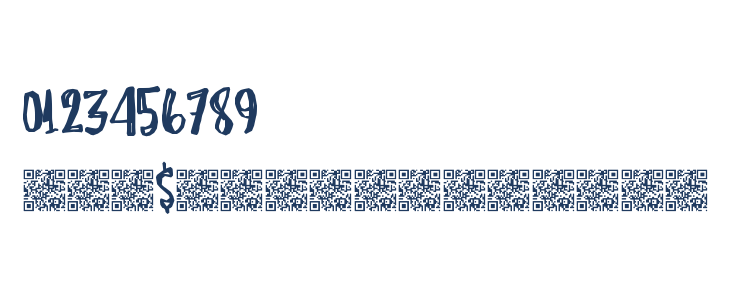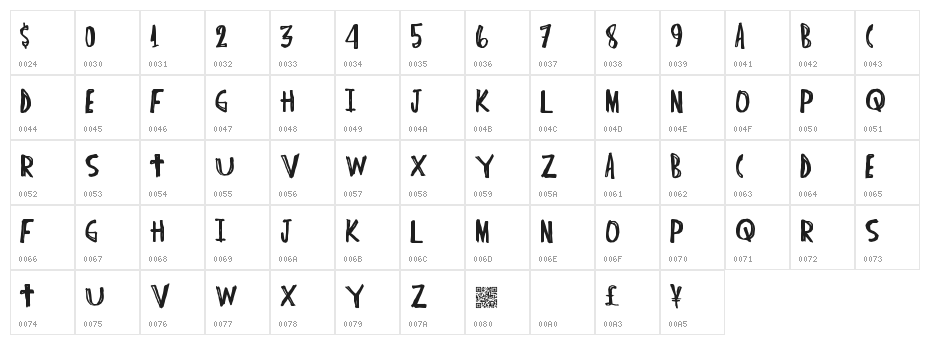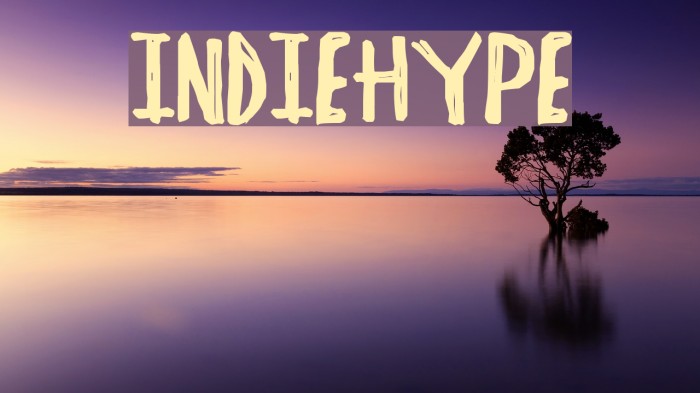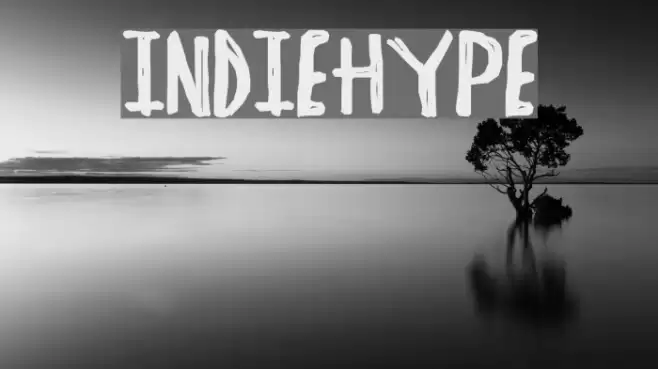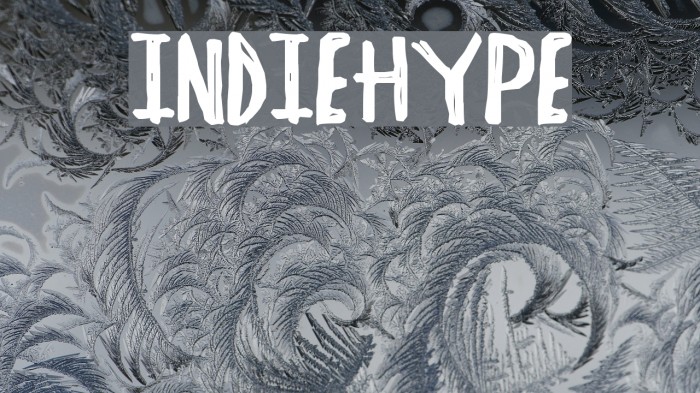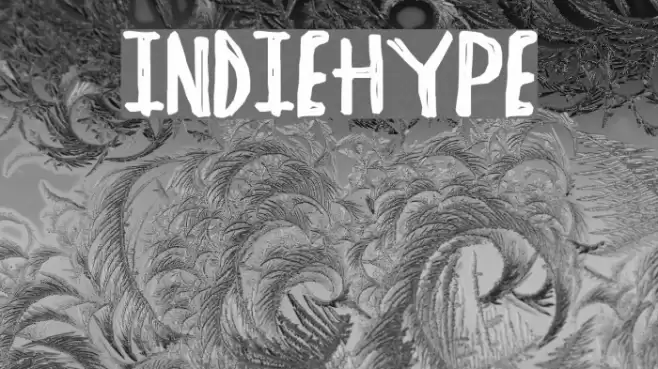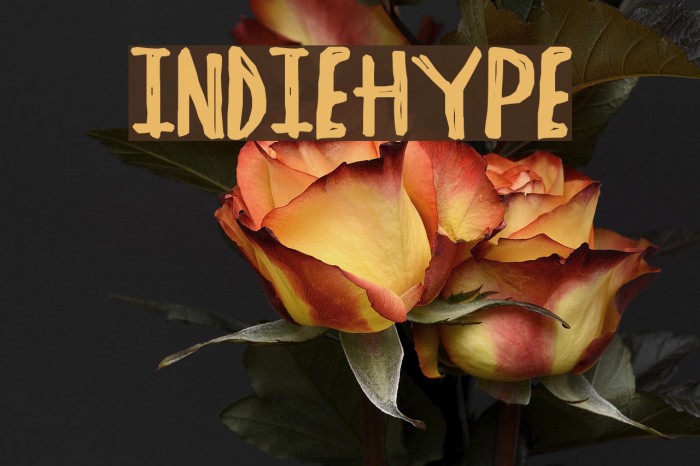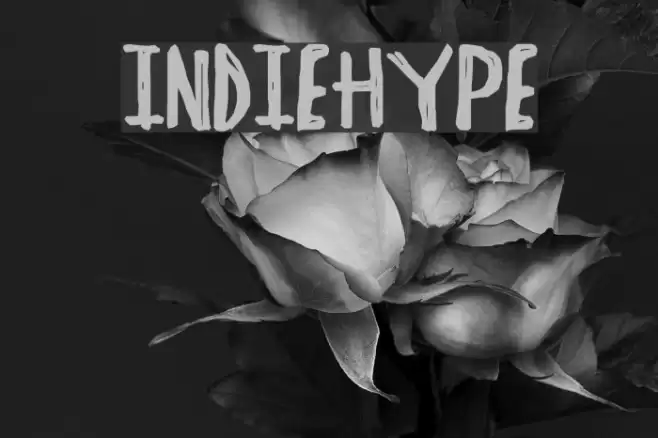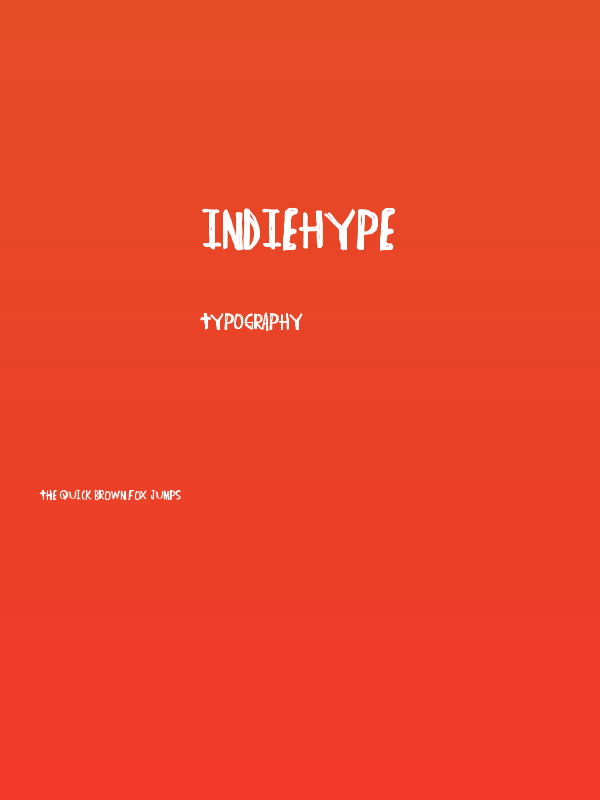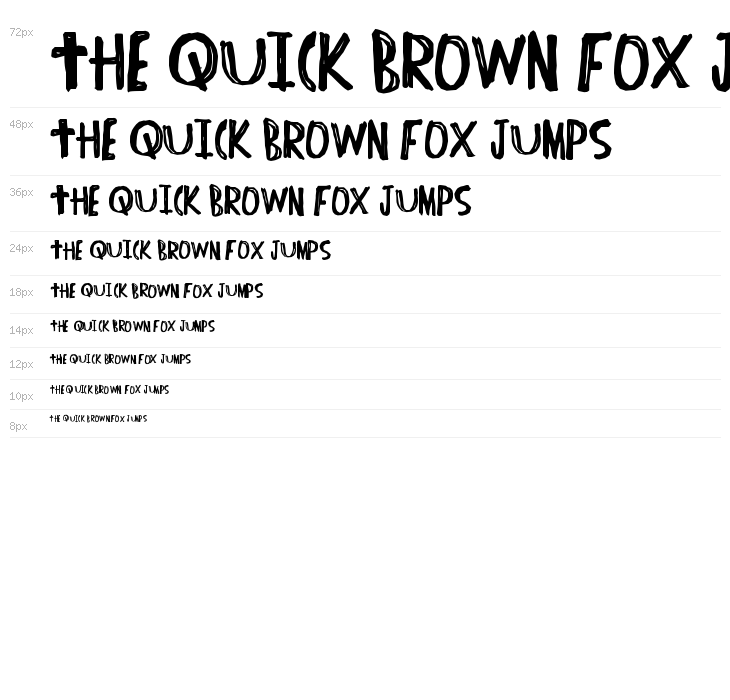
IndieHype Font
IndieHype Description
This font features a bold, hand-drawn style with a playful and energetic vibe. The characters are irregular and slightly tilted, giving it a dynamic and informal appearance. The strokes are thick and uneven, adding to its casual and artistic feel. The uppercase and lowercase letters maintain a consistent style, while the numbers and special characters complement the overall look. This font is ideal for projects that require a personal touch or a creative flair, such as posters, album covers, or social media graphics. Its unique style makes it stand out, capturing attention with its lively and expressive design.
| Proposed Projects | Posters, album covers, social media graphics, creative projects. |